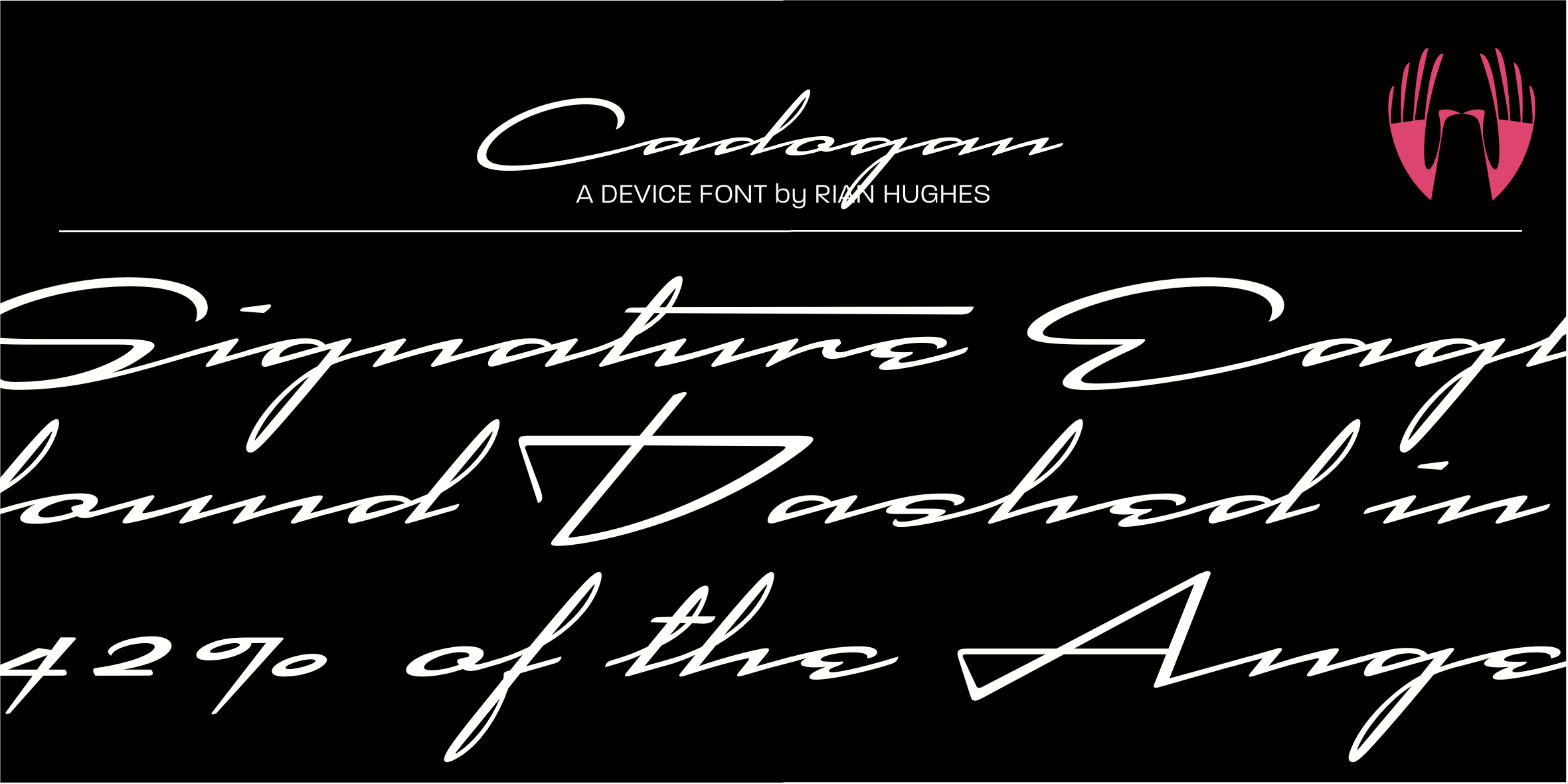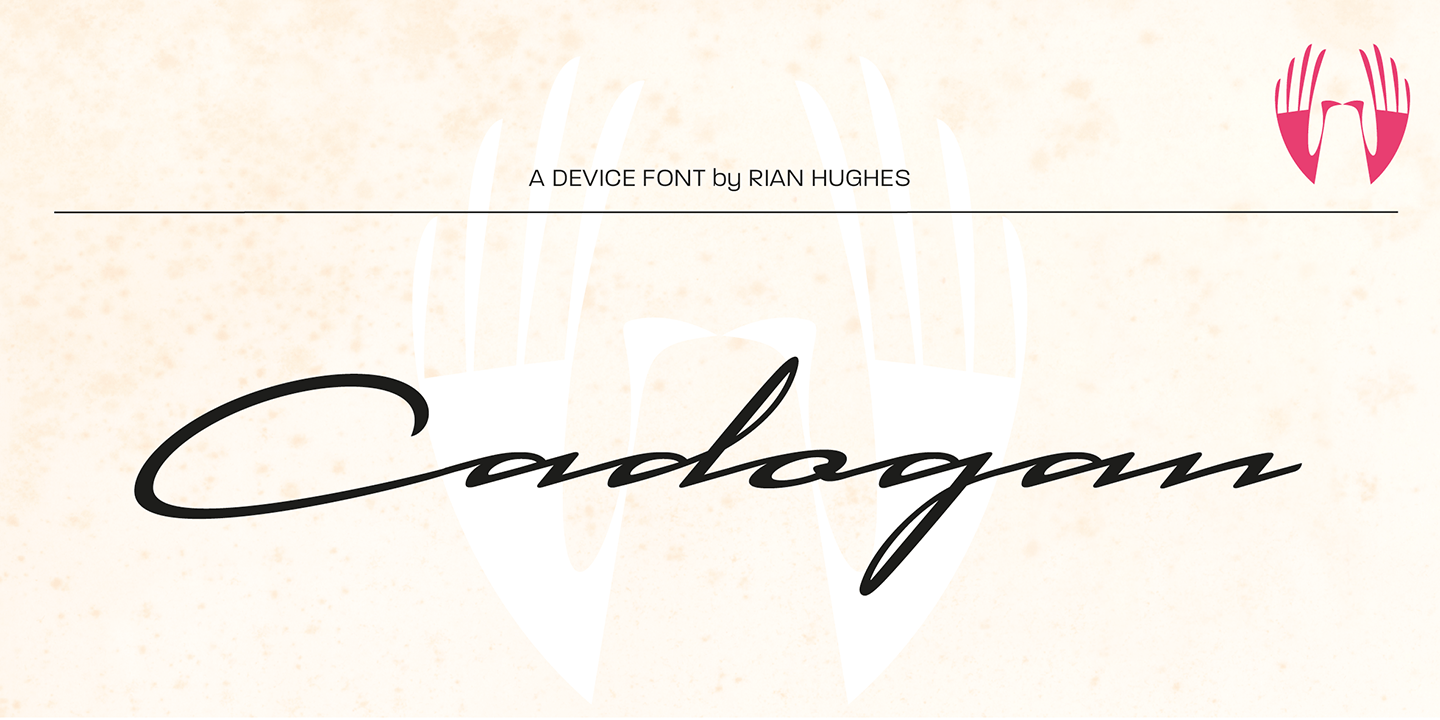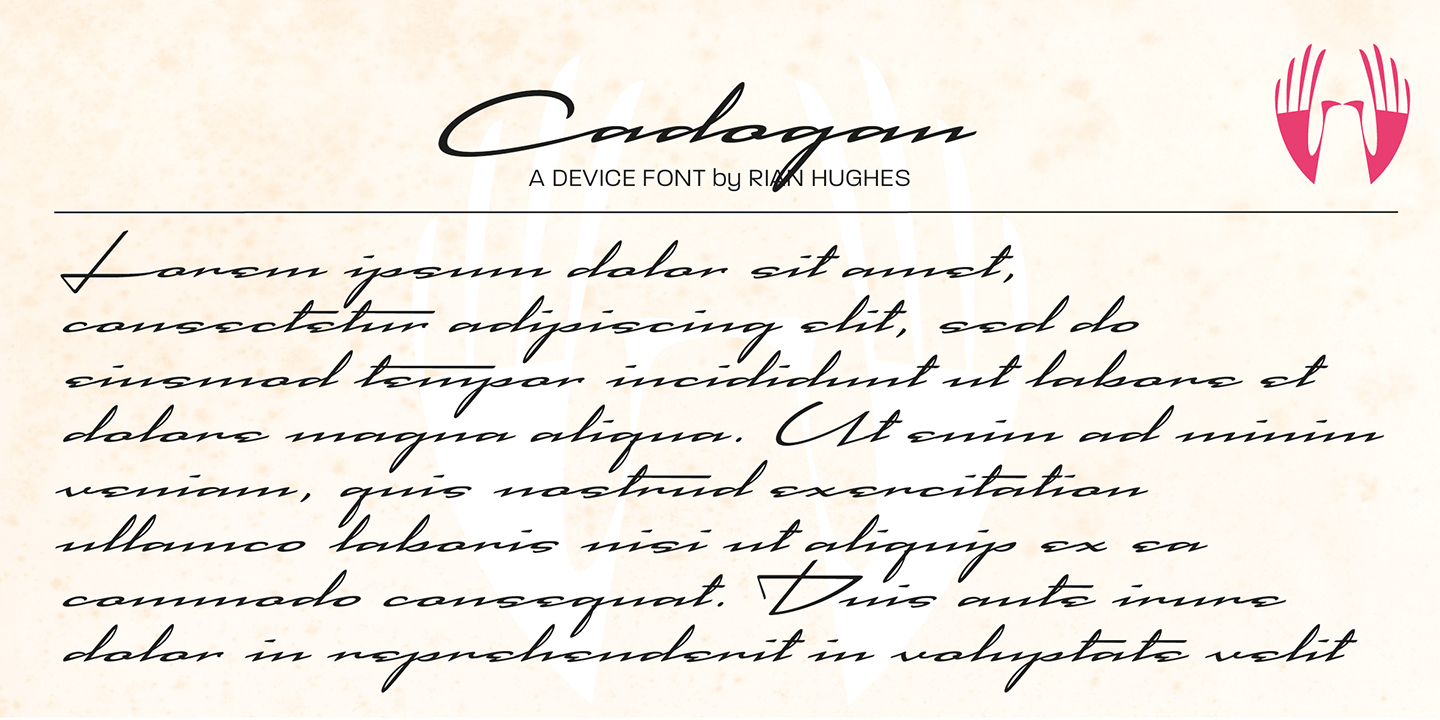
Cadogan
Font Family by Device
A freeform linking script that again uses OpenType programming to replace beginning and ending characters with uniquely designed variants.
Also includes ligatures and an extended t-bar carefully designed to not collide with ascenders.